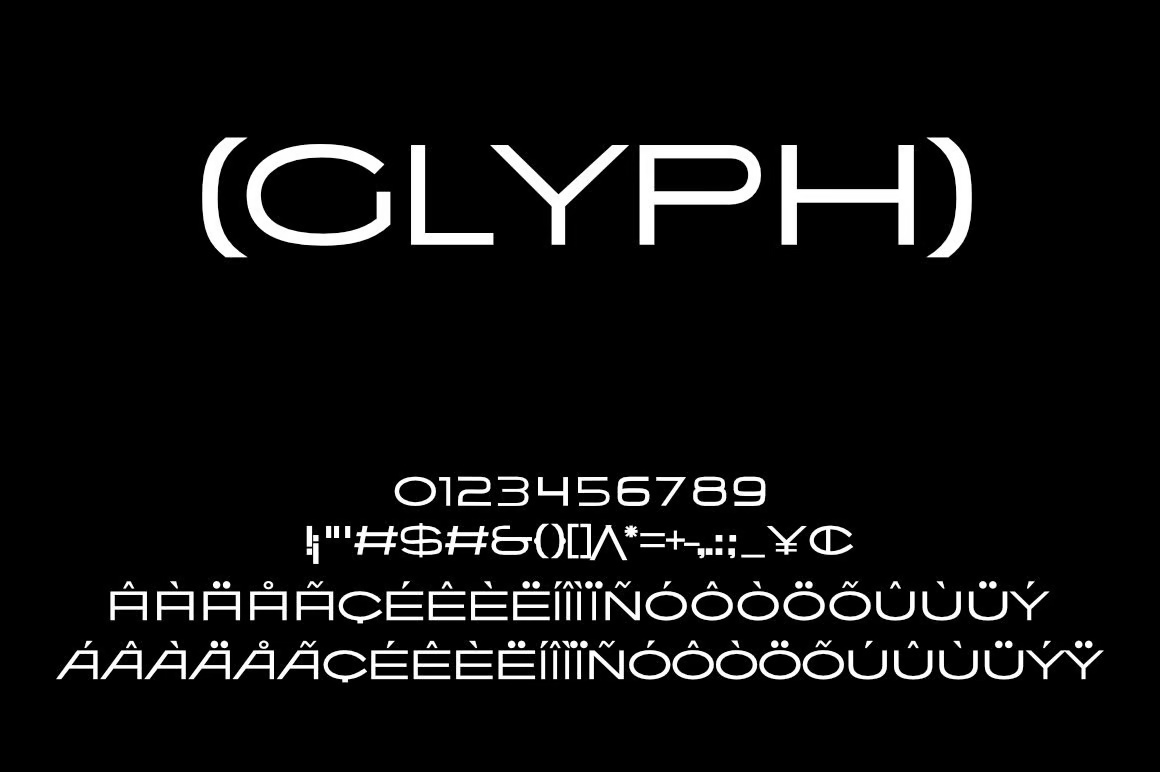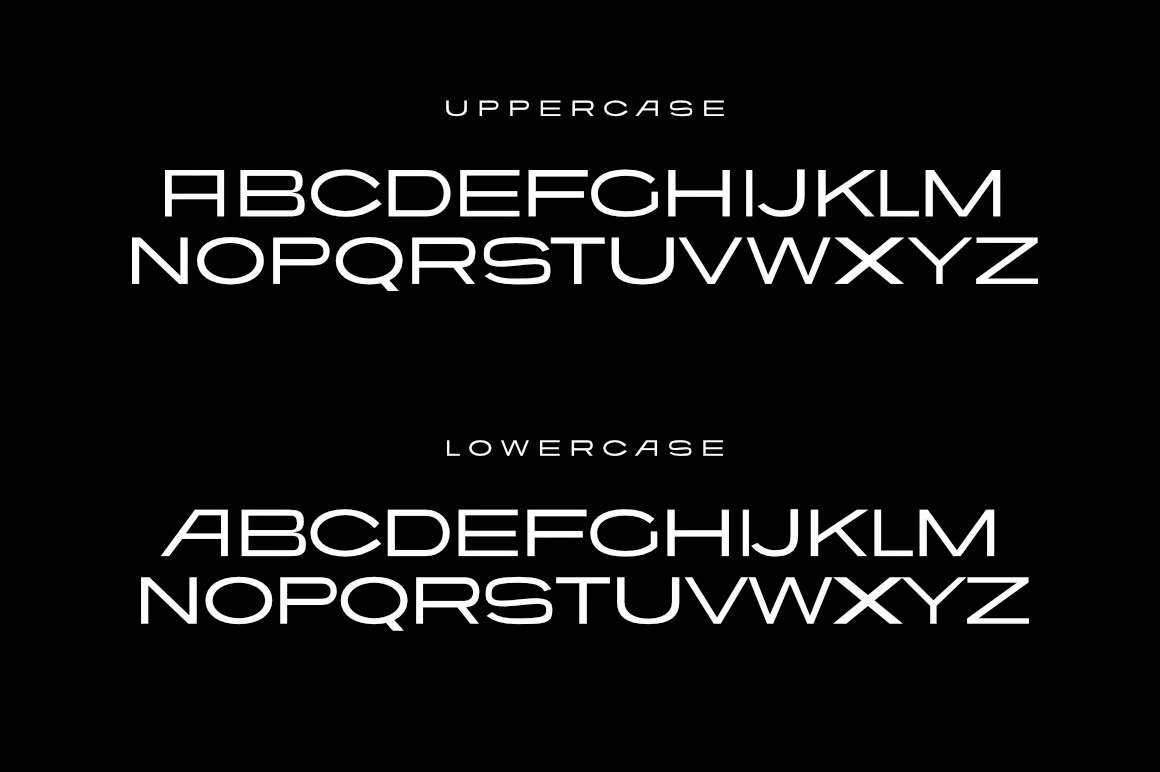
NextF Games is very wide and very smooth. ffeeaarr drew stretched capitals with flat ends and squared-off curves, so the C, G and O look like rounded rectangles laid on their side. The “Cloudy, out now” preview sets it in white over a lilac photo of a hand in water.
Both keyboards give you capitals, and the glyph sheet shows a full set of accented letters in roman and italic. The family runs from Regular to Black, each with an italic, which gives you plenty of room to build a hierarchy from one design.
Best uses for NextF Games
- Video game titles and menus
- Tech and AI brands
- Album and single covers
- Fashion campaigns
- Motion graphics
NextF Games works with compact partners. Inter keeps body text tidy. Space Grotesk matches its tech tone. For a contrasting serif, try Instrument Serif.